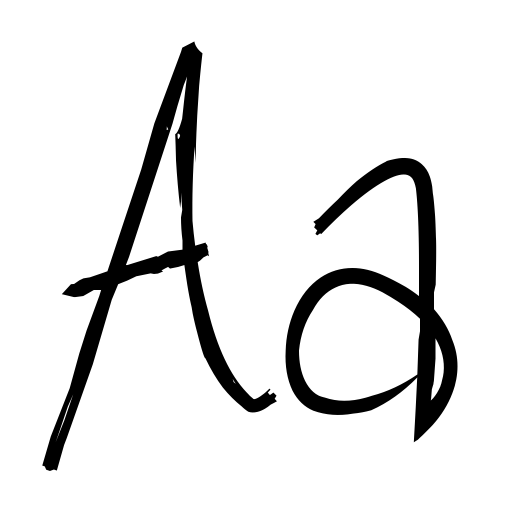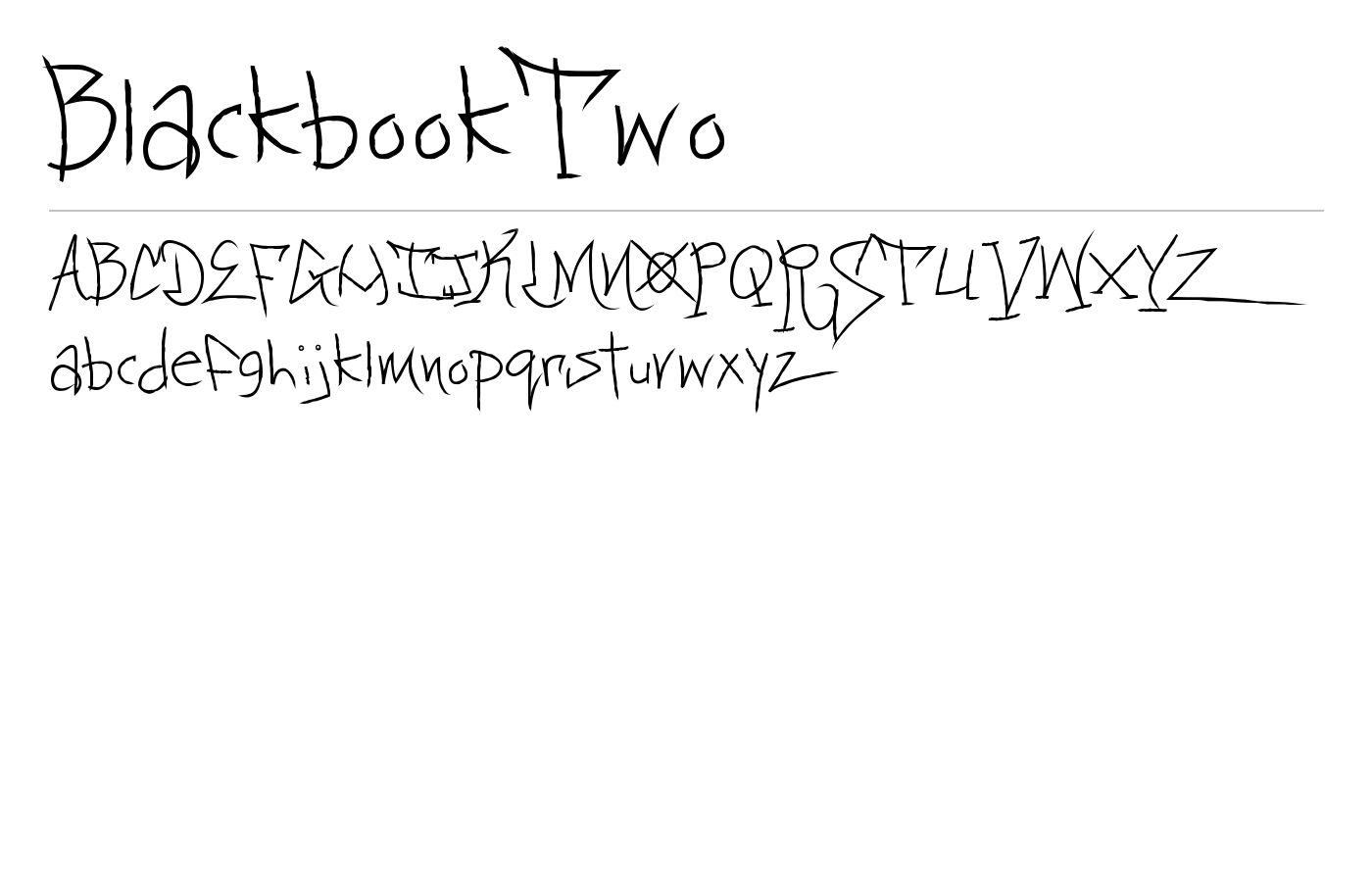
BlackbookTwo is a distinctive handwritten-style font with a narrow width and tall, irregular letterforms that convey a raw, edgy feel. Its sharp, spiky strokes and quirky, uneven characters make it perfect for creative projects that want a rebellious, artistic vibe. This font works well for posters, logos, or any design seeking a unique, expressive look with a strong personality.
BlackbookTwo Font
About BlackbookTwo Font